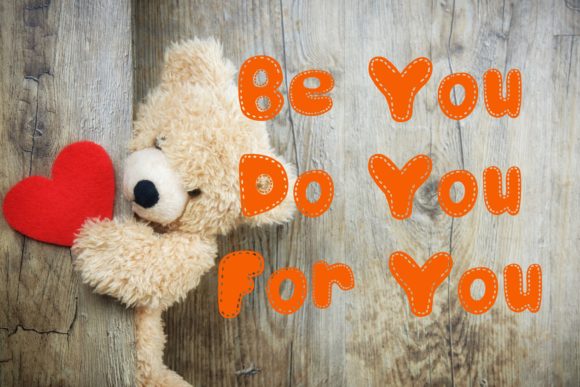
Introduction to Sewing Craft Font Font
Fonts play a crucial role in design, and the Sewing Craft Font font is a typeface that brings both character and versatility to any project. Whether you’re working on a branding project, a website, or a print design, the Sewing Craft Font font offers a unique style that can elevate your work.
Sewing Craft is a minimal and neat display font.
It is a good match for an incredibly large set of projects, so add it to your creative ideas and notice how it makes them stand out You can add this cute display font on t-shirts, mugs, childrenβs books, school projects, quotes, fashion, and other crafts.
Key Features of Sewing Craft Font Font
Why Choose Sewing Craft Font Font?
The Sewing Craft Font font is more than just a typeface β it’s a design tool that helps you communicate your message with style and clarity. Its unique character set and versatile design make it suitable for a wide range of applications, from elegant invitations to bold headlines.
With its carefully crafted letterforms and balanced proportions, the Sewing Craft Font font ensures readability and visual appeal across all mediums.
What makes Sewing Craft Font font special?
The Sewing Craft Font font stands out with its unique design, exceptional readability, and versatility across various design applications.